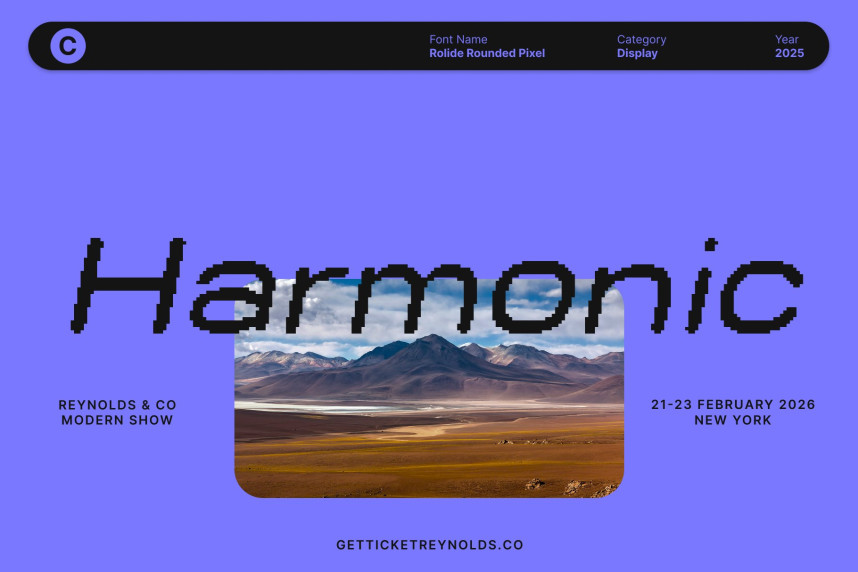
Rolide Rounded Pixel Font
Rolide Rounded Pixel Font – Expanded Sans Serif with Retro-Digital Charm Expanded & Wide Sans Serif Structure. This is an expanded sans serif font designed with wide proportions that immediately create a modern presence. Its spacious letterforms enhance visibility and deliver a confident typographic style, making it ideal for layouts that demand clarity and visual impact.